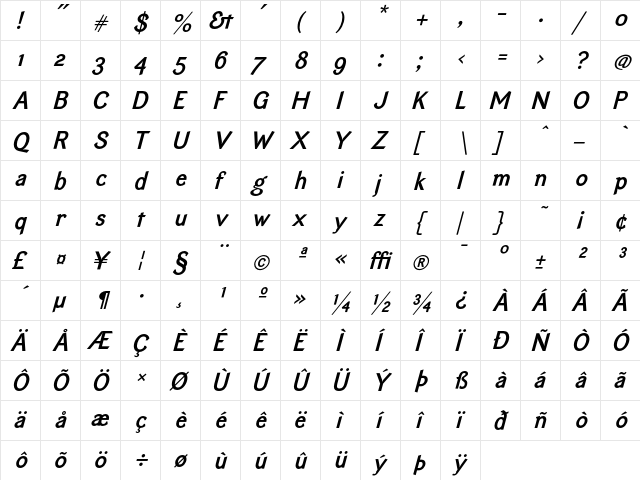
EquipoizeSans BoldItalic
Design Context for EquipoizeSans Typeface
EquipoizeSans is a composed and adaptable typeface that performs quietly and consistently across a wide range of design contexts. The slanted form adds forward momentum and visual energy. Its bold stroke weight gives it real presence on the page.
Pro Tip: Use EquipoizeSans for emphasis, pull quotes, and subheadings where its slanted energy can add rhythm to the layout.